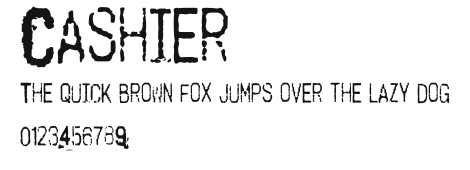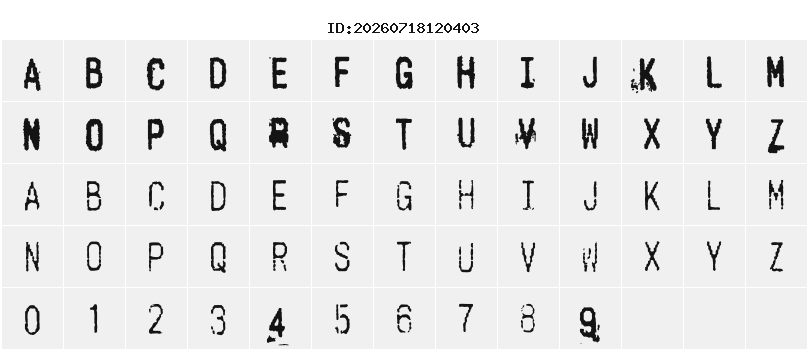
Cashier.ttf is a modern, elegant sans-serif font designed for ultimate readability and visual harmony. Perfect for branding, headlines, web design, and print materials.